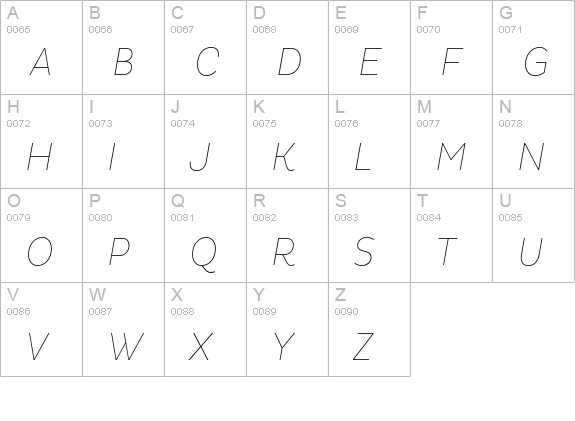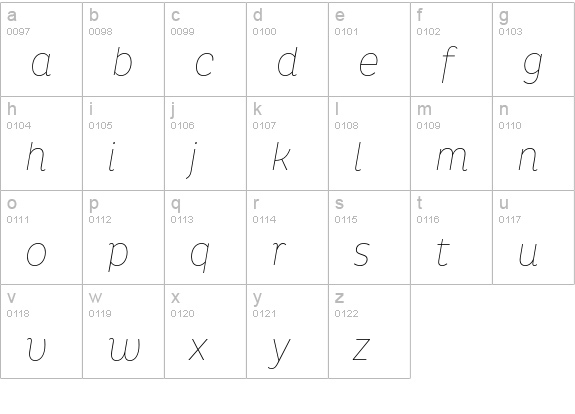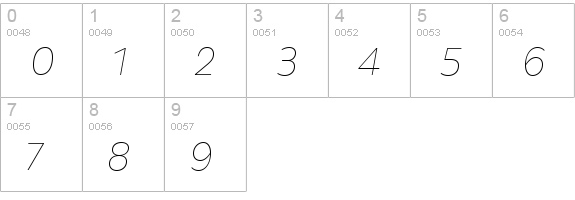
Pluto Cond Thin Italic is a delicate, low-contrast, condensed-width, italic variant in the Pluto typeface family \xE2\x80\x94 well suited to fashion editorial, minimal branding, and high-contrast display.
Pluto Cond Thin Italic font exudes elegance and sophistication with its slender design and delicate italics. Perfect for adding a touch of modern flair to your projects, this typeface features clean lines and graceful curves that effortlessly captivate the eye. Whether you're designing a sleek website or crafting a refined print piece, Pluto Cond Thin Italic lends a sense of style and refinement to any layout. And the best part? This stunning font is available for free download at FontsMarket.com. Embrace the beauty and versatility of Pluto Cond Thin Italic as you elevate your designs to new heights. Unlock your creativity with this exceptional typeface that combines creativity with ease of use. Download it now and make your projects stand out with the timeless charm of Pluto Cond Thin Italic font.